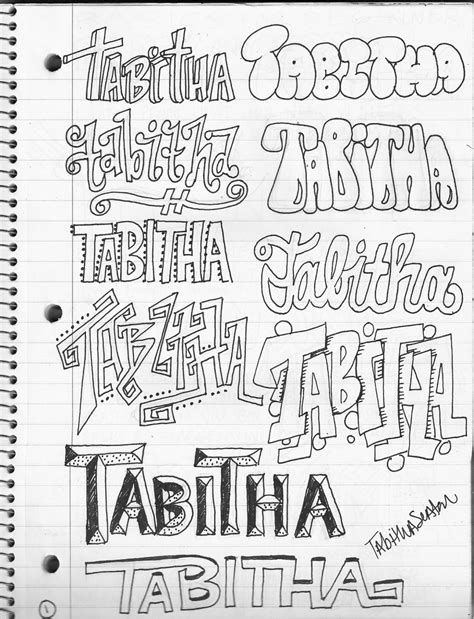
Handwriting is a unique and personal form of expression that has evolved over centuries. It is a reflection of one's personality, emotions, and cognitive processes. Different kinds of handwriting can reveal a lot about an individual, from their mood to their level of education. Understanding the various types of handwriting can provide insights into how people communicate and perceive the world around them.
The Evolution of Handwriting
Handwriting has undergone significant changes over time, influenced by cultural, technological, and educational factors. From ancient scripts to modern cursive, the evolution of handwriting mirrors the development of human civilization. Early forms of writing, such as cuneiform and hieroglyphics, were highly stylized and often used for religious or administrative purposes. As societies became more literate, handwriting styles diversified to include various scripts and alphabets.
Different Kinds of Handwriting
Handwriting can be categorized into several types, each with its own characteristics and purposes. Understanding these different kinds of handwriting can help in appreciating the diversity and richness of human communication.
Print handwriting, also known as manuscript writing, is characterized by its clear, distinct letters that are separate from one another. This type of handwriting is often taught to children as it helps them develop fine motor skills and letter recognition. Print handwriting is easy to read and is commonly used in formal documents and educational materials.
Cursive Handwriting
Cursive handwriting is a flowing style where letters are connected, making it faster to write than print handwriting. It is often used for personal correspondence and note-taking. Cursive handwriting can vary widely in style and legibility, reflecting the individual’s personal touch and writing habits.
Calligraphy
Calligraphy is an art form that involves beautiful and stylized handwriting. It is often used for decorative purposes, such as in invitations, certificates, and artwork. Calligraphy requires a high level of skill and practice, and it can be written using various tools, including pens, brushes, and quills.
Informal Handwriting
Informal handwriting is a relaxed and often less legible style used in everyday writing, such as notes to oneself or casual messages. It can be highly personal and may include abbreviations, slang, and unique letter formations. Informal handwriting is a reflection of the writer’s comfort and familiarity with the subject matter.
Formal Handwriting
Formal handwriting is used in official documents, business correspondence, and academic papers. It is characterized by its neatness, clarity, and consistency. Formal handwriting often follows specific guidelines and standards to ensure legibility and professionalism.
Graphology
Graphology is the study of handwriting to analyze a person’s personality, emotions, and cognitive processes. It involves examining various aspects of handwriting, such as letter size, spacing, pressure, and slant. Graphologists believe that handwriting can reveal deep insights into an individual’s character and psychological state.
The Impact of Technology on Handwriting
With the advent of digital technology, the practice of handwriting has declined significantly. The use of keyboards, touchscreens, and voice recognition has made handwriting less necessary in daily life. However, research has shown that handwriting still plays a crucial role in cognitive development and learning. Writing by hand engages different parts of the brain and enhances memory retention, creativity, and critical thinking.
Benefits of Handwriting
Handwriting offers numerous benefits that go beyond mere communication. Some of the key advantages include:
• Cognitive Development: Handwriting helps in developing fine motor skills, hand-eye coordination, and cognitive abilities.
• Memory Retention: Writing by hand improves memory retention and recall, making it an effective study tool.
• Creativity: Handwriting encourages creativity and self-expression, allowing individuals to explore their thoughts and emotions freely.
• Personal Touch: Handwritten notes and letters add a personal touch that digital communication often lacks, making them more meaningful and memorable.
Handwriting Analysis
Handwriting analysis, or graphology, is a fascinating field that explores the psychological and emotional aspects of handwriting. By examining different kinds of handwriting, analysts can gain insights into a person’s personality traits, emotional state, and cognitive processes. Some common aspects analyzed in handwriting include:
• Letter Size: Large letters may indicate confidence and extroversion, while small letters can suggest introversion and attention to detail.